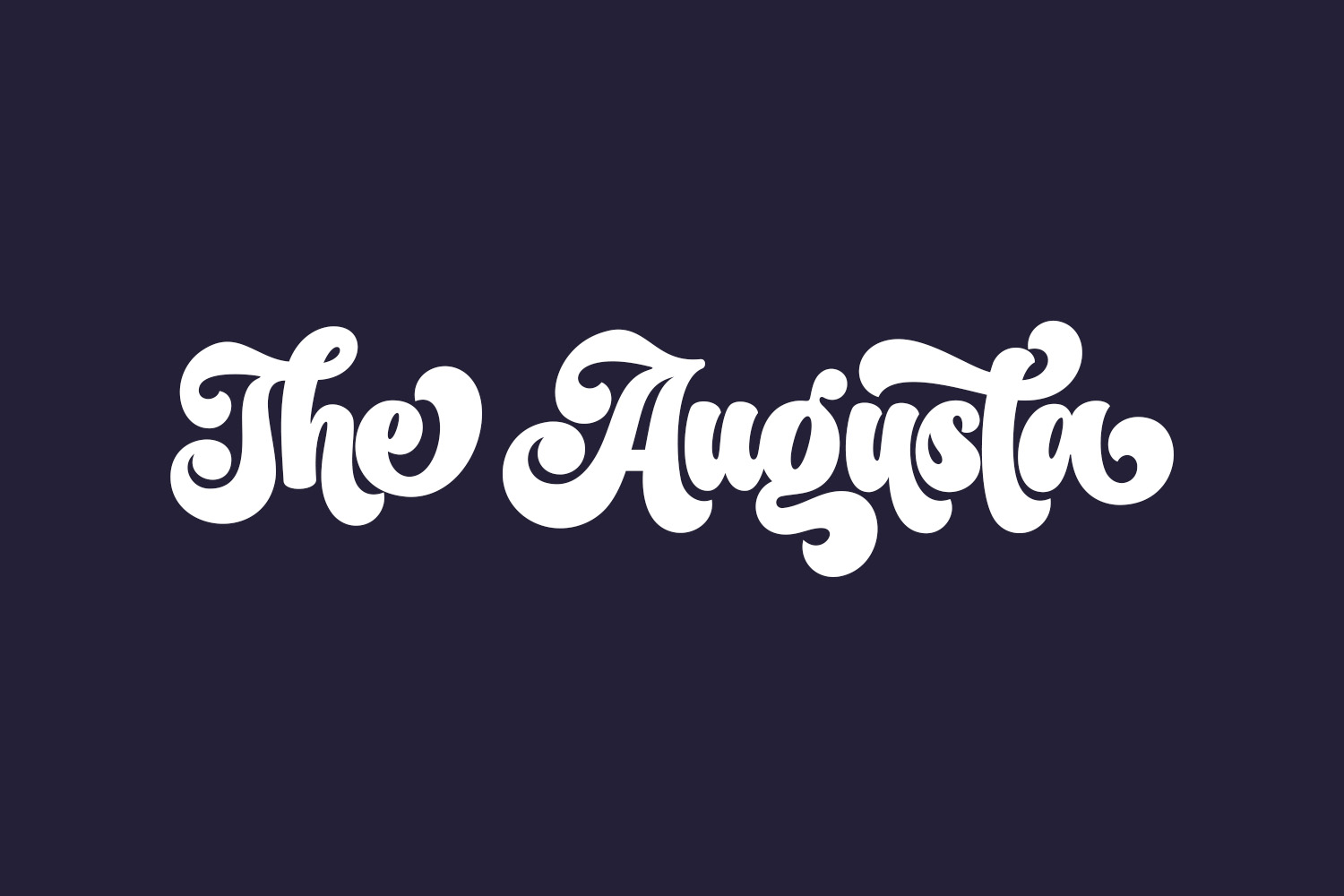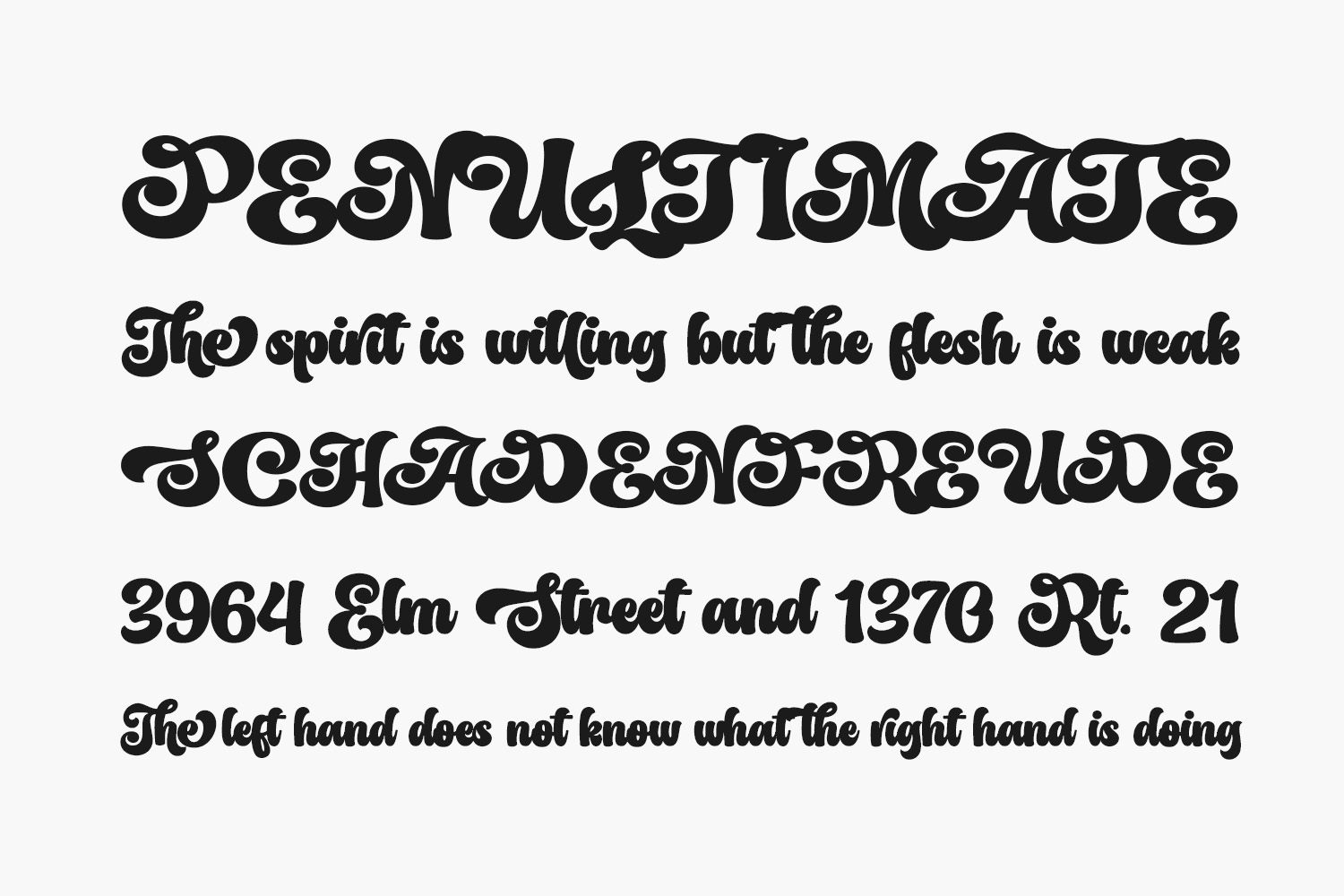
The Augusta Free Font embodies the essence of vintage retro fonts, drawing inspiration from the typography and lettering of the 70s and 80s while infusing a bold typographic flair. Ideal for vintage and retro-themed projects, it shines in applications such as badges, logos, t-shirts, posters, branding, packaging, signage, book covers, and a wide range of creative endeavors. The Augusta Free Font is free for personal use only. Please purchase the full version for commercial use.
Designed by Subectype & Orenari